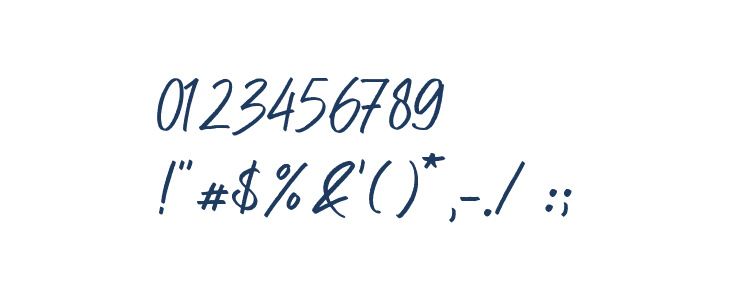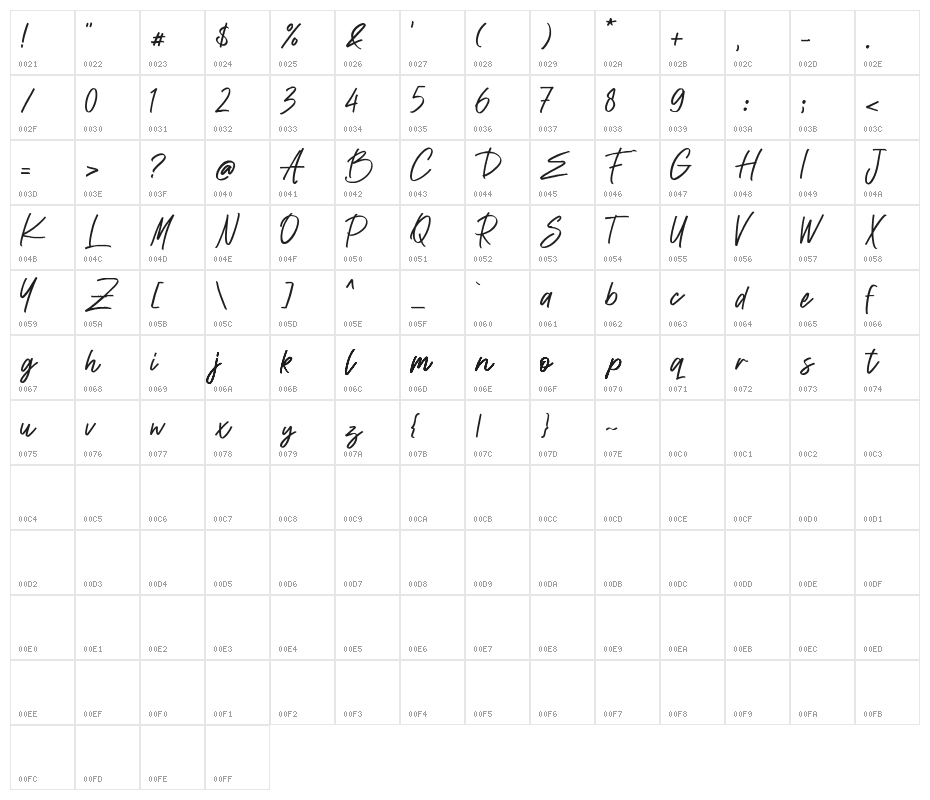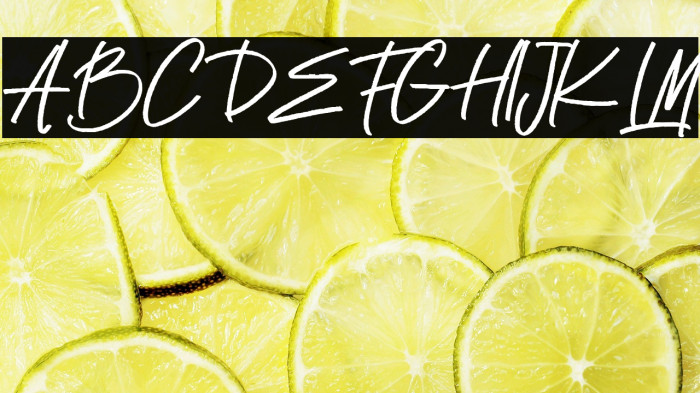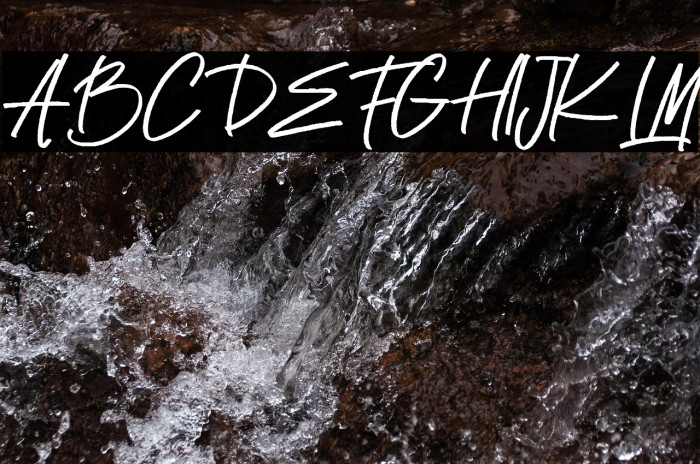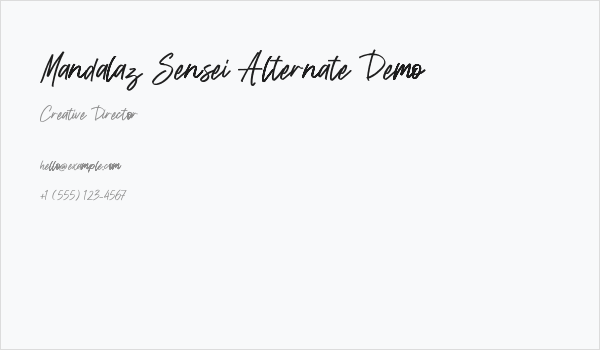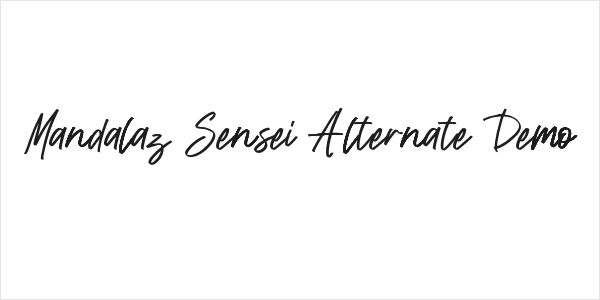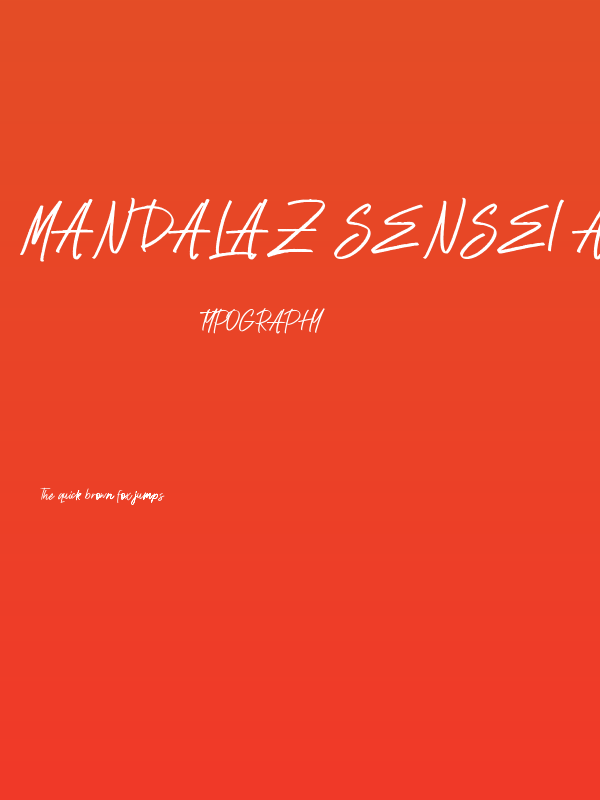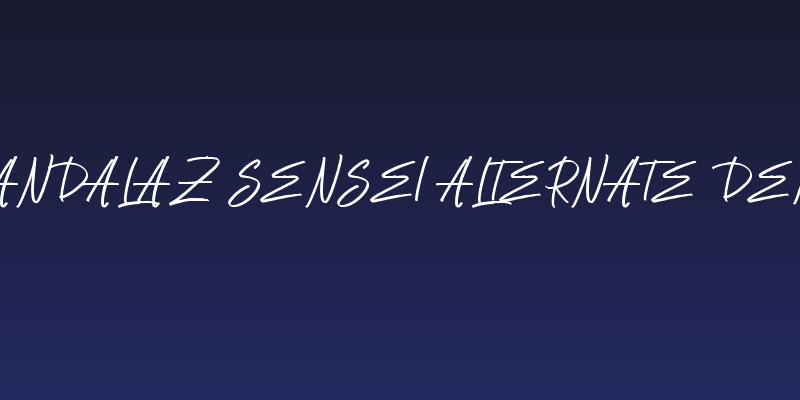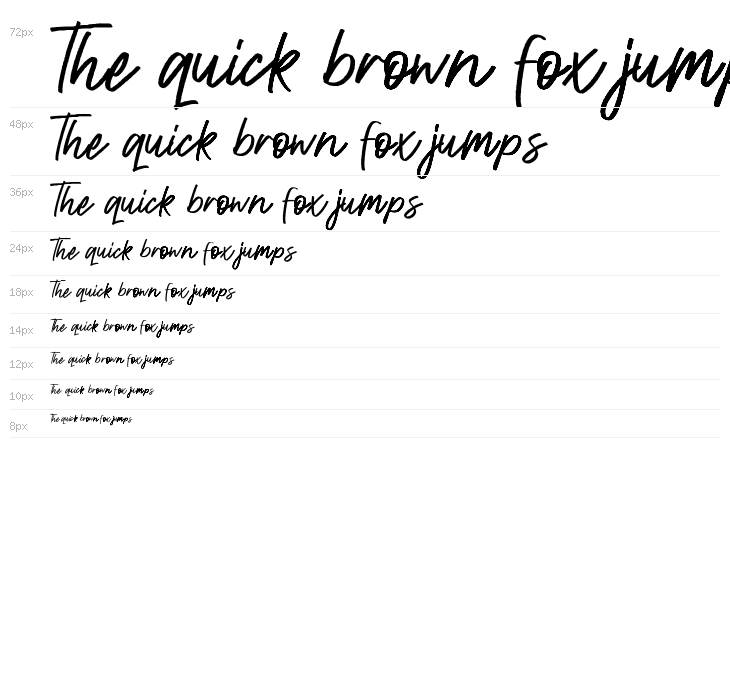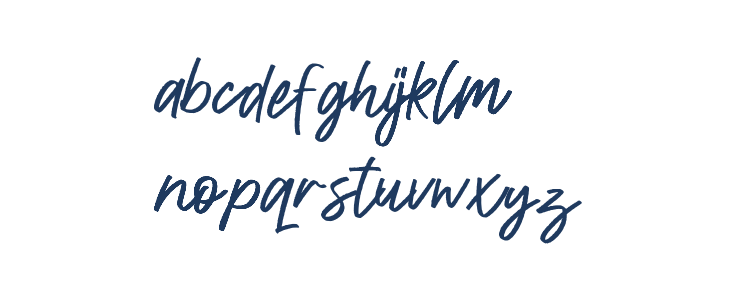
Mandalaz Sensei Alternate Demo Font
Mandalaz Sensei Alternate Demo Description
This font features a dynamic and expressive handwritten style, characterized by its fluid strokes and natural flow. The uppercase letters are bold and slightly slanted, giving a sense of movement and energy. The lowercase letters maintain a consistent style with a casual, yet elegant appearance. Numbers and special characters are crafted with the same attention to detail, ensuring a cohesive look across all elements. The overall design is both modern and artistic, making it suitable for a variety of creative applications.